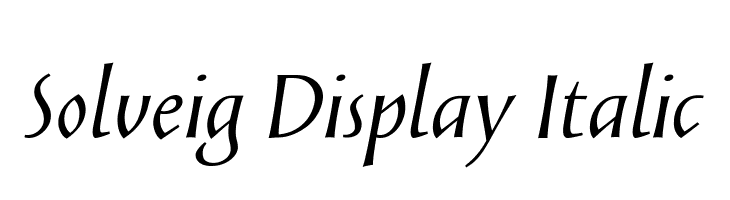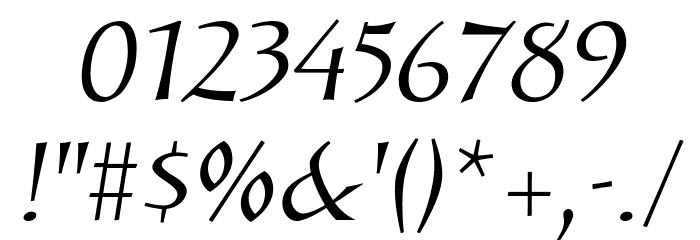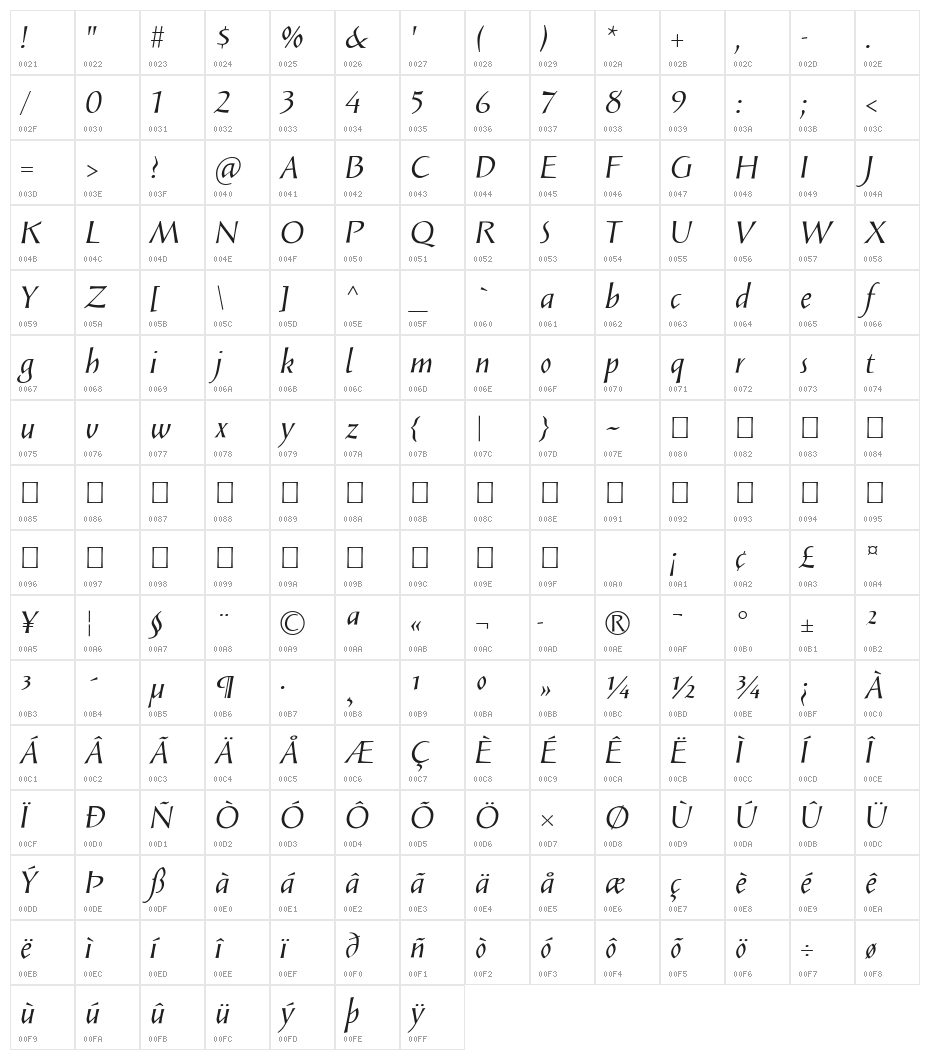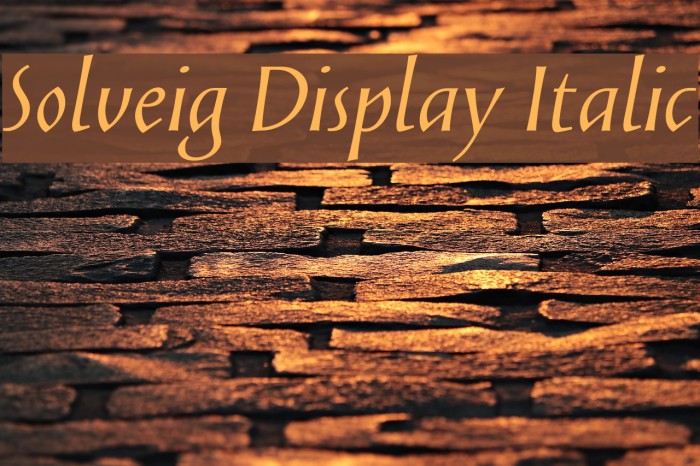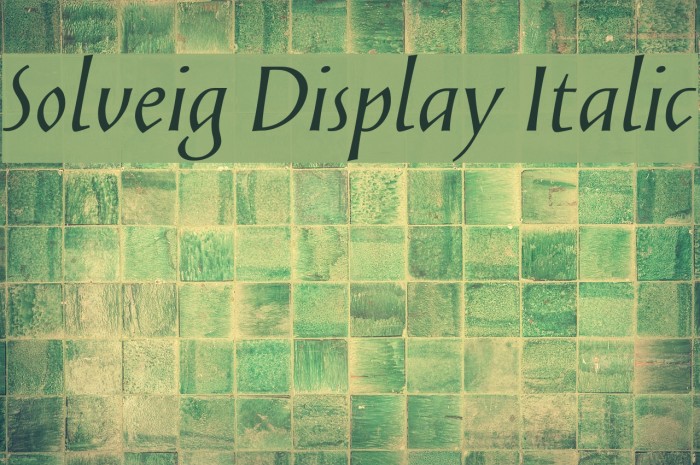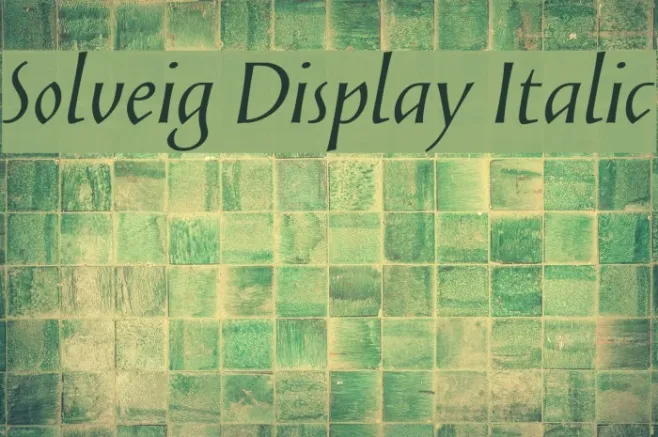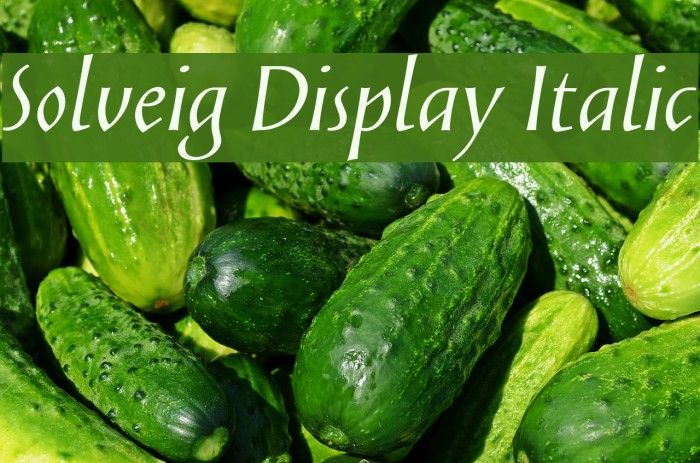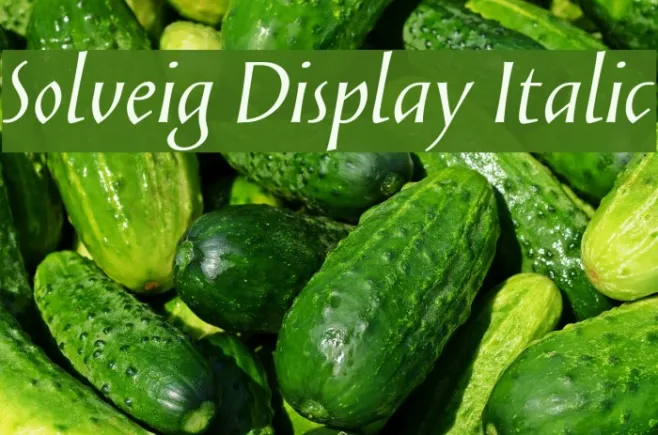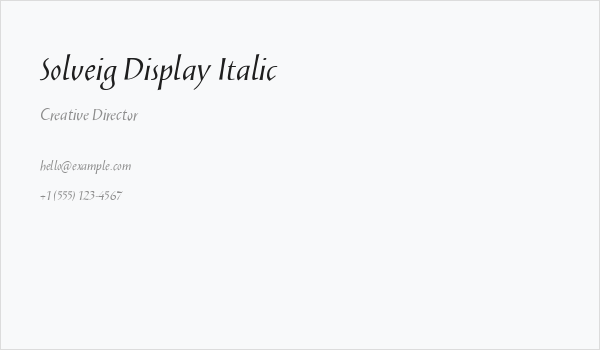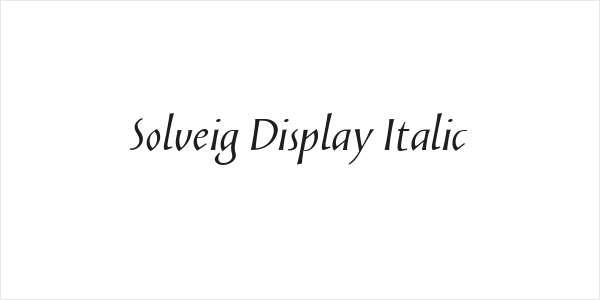
Solveig Display Italic Font
Solveig Display Italic Description
This font features an elegant and dynamic italic style, characterized by its flowing and slightly angular letterforms. The uppercase letters exhibit a distinct slant with sharp serifs, giving them a sophisticated and modern appearance. The lowercase letters maintain a consistent slant, enhancing the fluidity and grace of the text. The numerals are well-proportioned, aligning seamlessly with the overall design. Special characters are crafted with the same attention to detail, ensuring a cohesive look across all glyphs. The font's design is both artistic and readable, making it suitable for various creative applications.